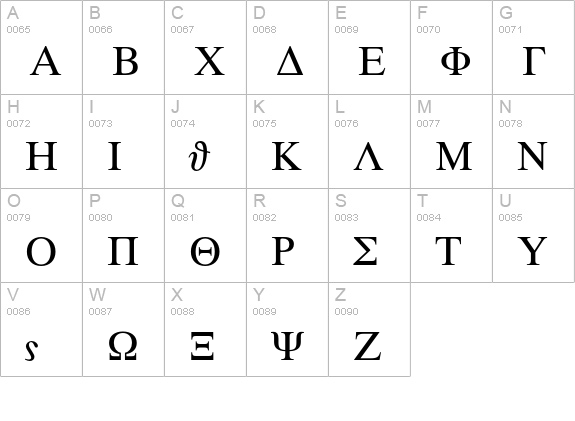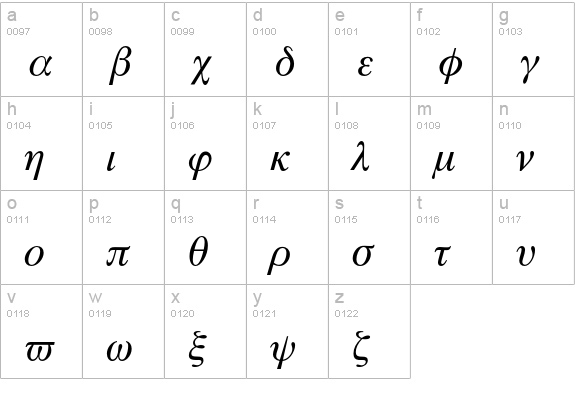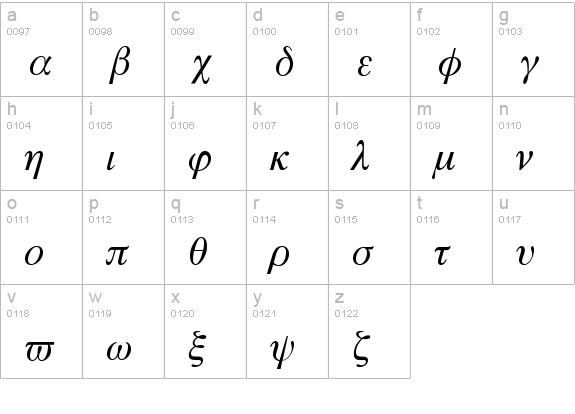
Symbol Proportional Font Details
Symbol Proportional font is a versatile and stylish typeface that is perfect for a wide range of design projects. It features clean lines and a modern aesthetic, making it ideal for both print and digital applications. The proportional spacing of this font ensures a balanced and harmonious appearance, making your text look professional and polished. What sets Symbol Proportional font apart is its unique symbols and characters, adding a touch of creativity and sophistication to your designs. Whether you are working on branding materials, posters, or social media graphics, this font will help you make a statement and stand out from the crowd. Best of all, Symbol Proportional font is available for free download at FontsMarket.com, making it accessible to anyone looking to elevate their design projects without breaking the bank. Download this font today and add a touch of elegance and flair to your work.